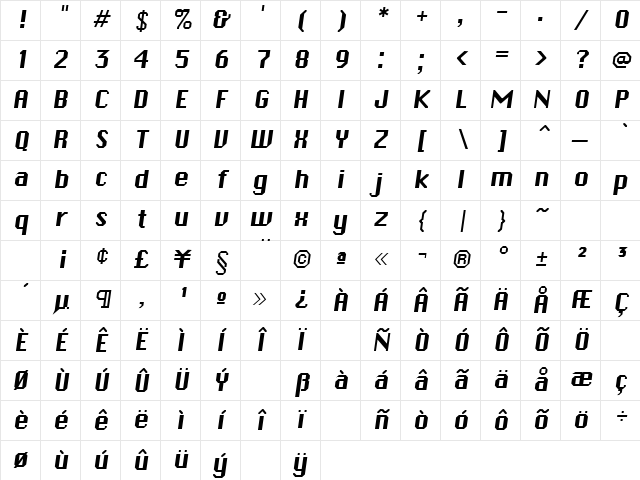
Chicago Oblique
Chicago Oblique Family
Design Context for Chicago
Chicago is a composed and adaptable typeface that performs quietly and consistently across a wide range of design contexts. The slanted form adds forward momentum and visual energy.
Pro Tip: Use Chicago for emphasis, pull quotes, and subheadings where its slanted energy can add rhythm to the layout.